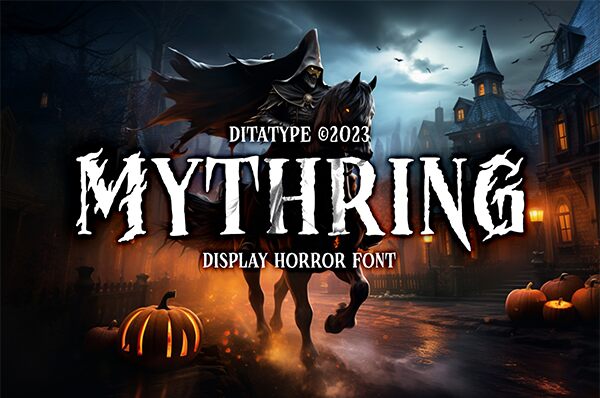
Mythring font by Ditatype is a scary, condensed display font that packs the ideal amount of horror one should expect from a terrifying typeface. With it, readers can indulge in the ghastly possibilities of the texts presented that carry within each character hints of mystery and drama. Mythring took inspiration for its unusual designs from gothic elements with distressed projects that manage to keep an ancient spirit alive.
The presentational designs created with Mythring will be striking ones whether they’re merchandise or branding as this free font can appear on concert banners or fashion collections, books and book covers, animated series artwork and posters, stand-alone typography artwork, album art for metal bands as well as horror films’ titles and stills for set design.